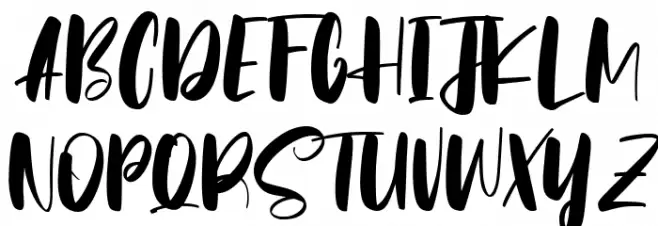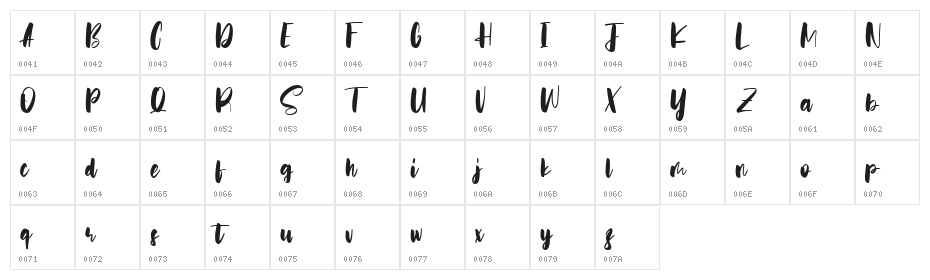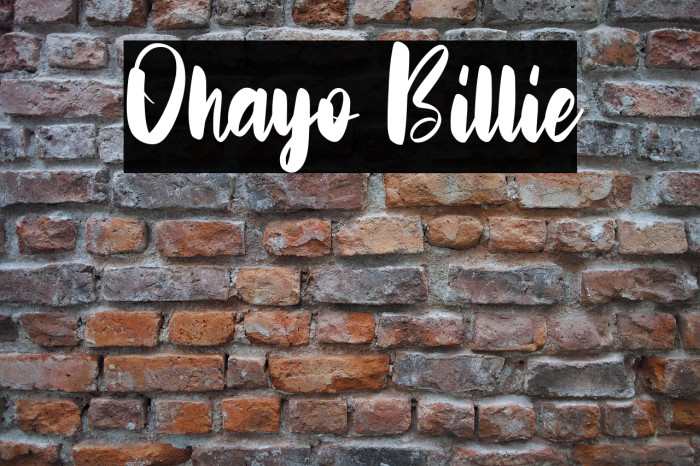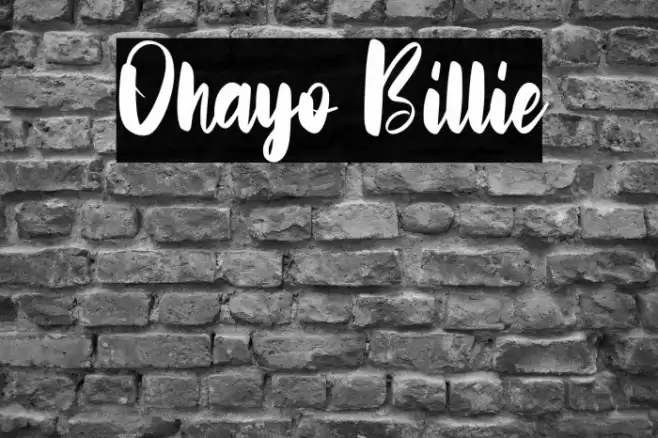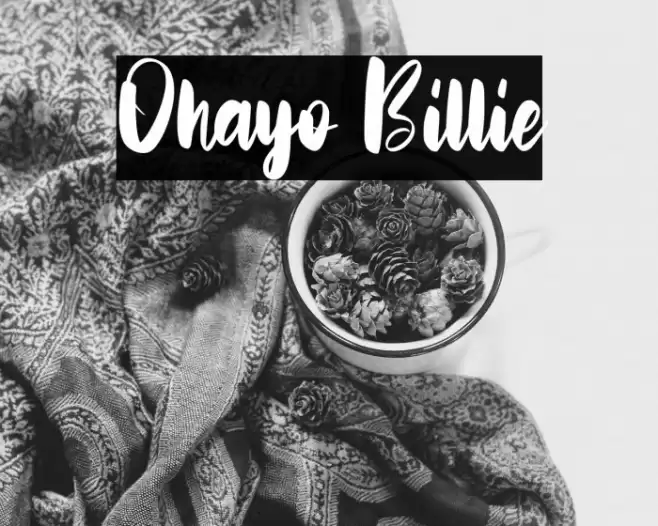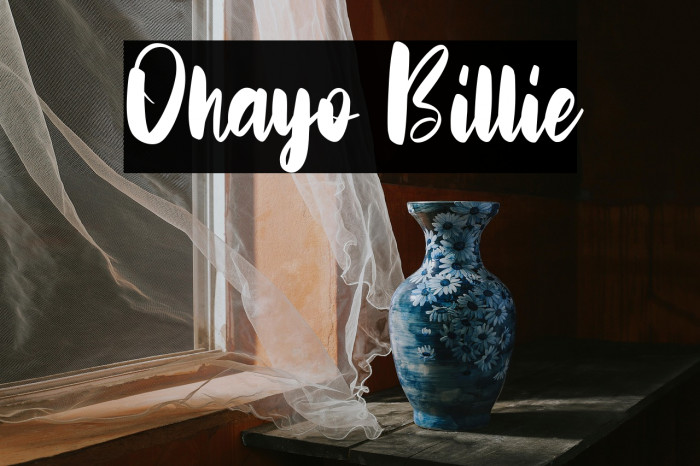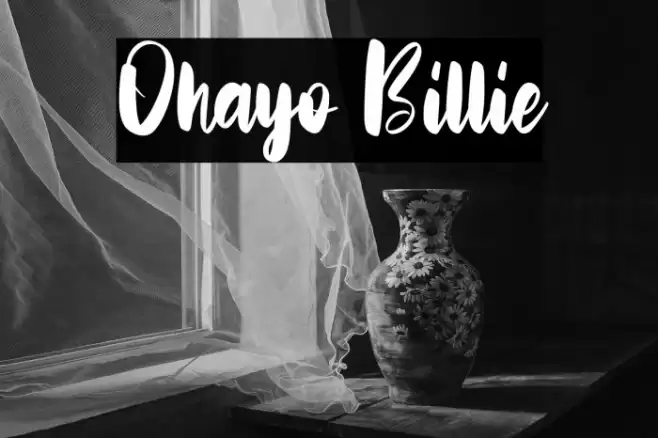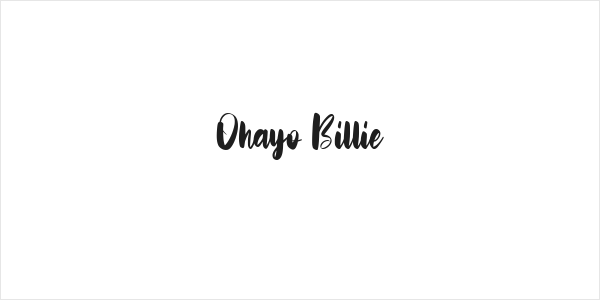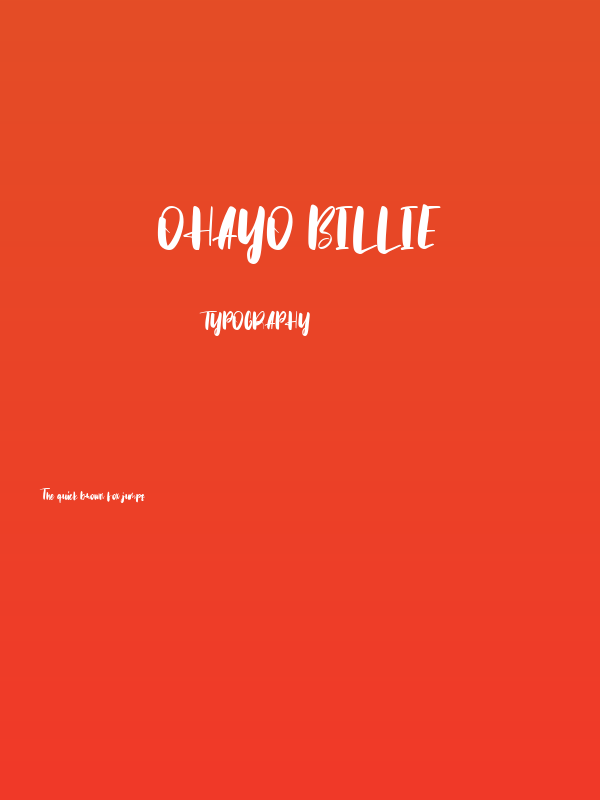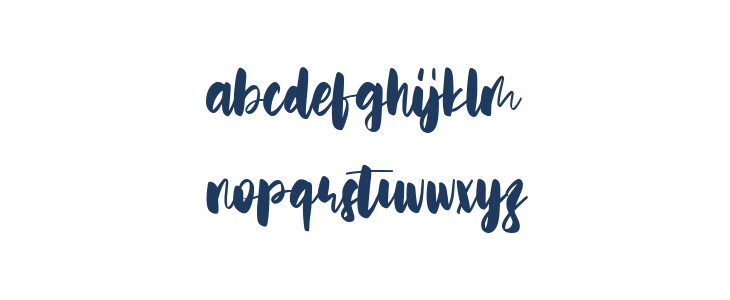
Ohayo Billie Font
Ohayo Billie Description
This font exhibits a bold and expressive handwritten style, characterized by its fluid and dynamic strokes. The uppercase letters are prominent with a playful yet sophisticated flair, while the lowercase letters maintain a consistent flow, enhancing readability. The font's design incorporates a mix of thick and thin lines, creating a sense of movement and energy. The special characters are seamlessly integrated, maintaining the overall aesthetic. This font is ideal for projects that require a personal touch or a creative edge, such as invitations, branding, and social media graphics.